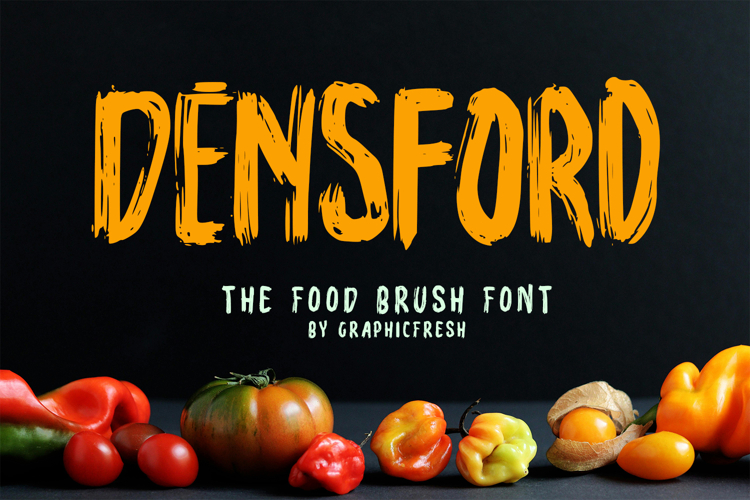
Densford - The Brush Food Font
Densford is a brush food font designed with bold strokes and playful hand-painted character. Inspired by food branding and casual handwritten menus, this font delivers a warm, friendly, and appetizing visual style. Its organic brush texture and smooth flow create a lively personality while maintaining clear readability.